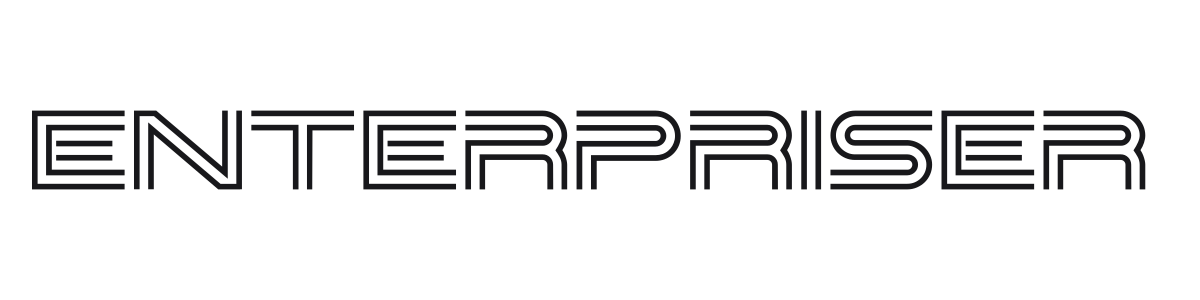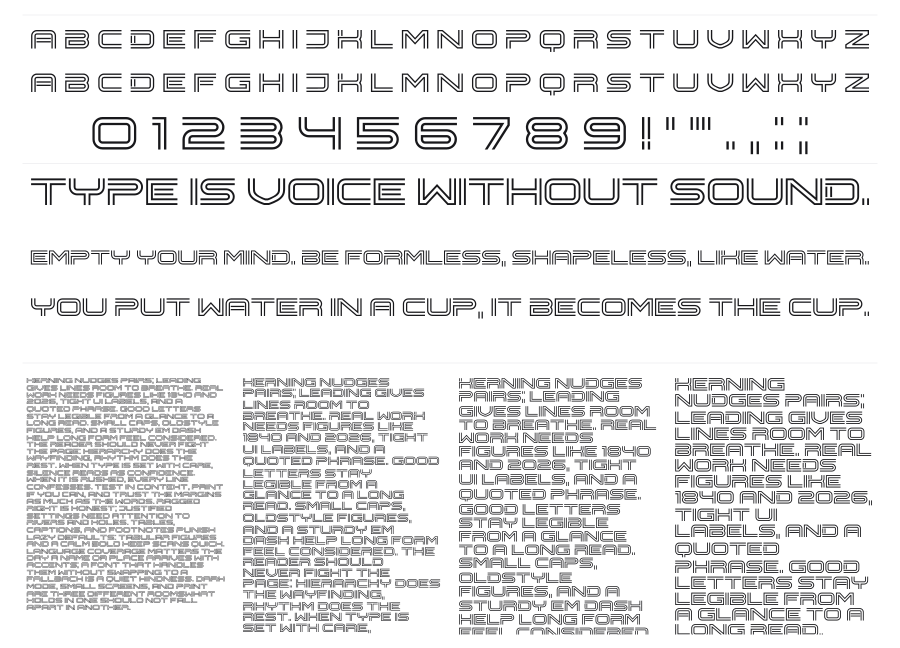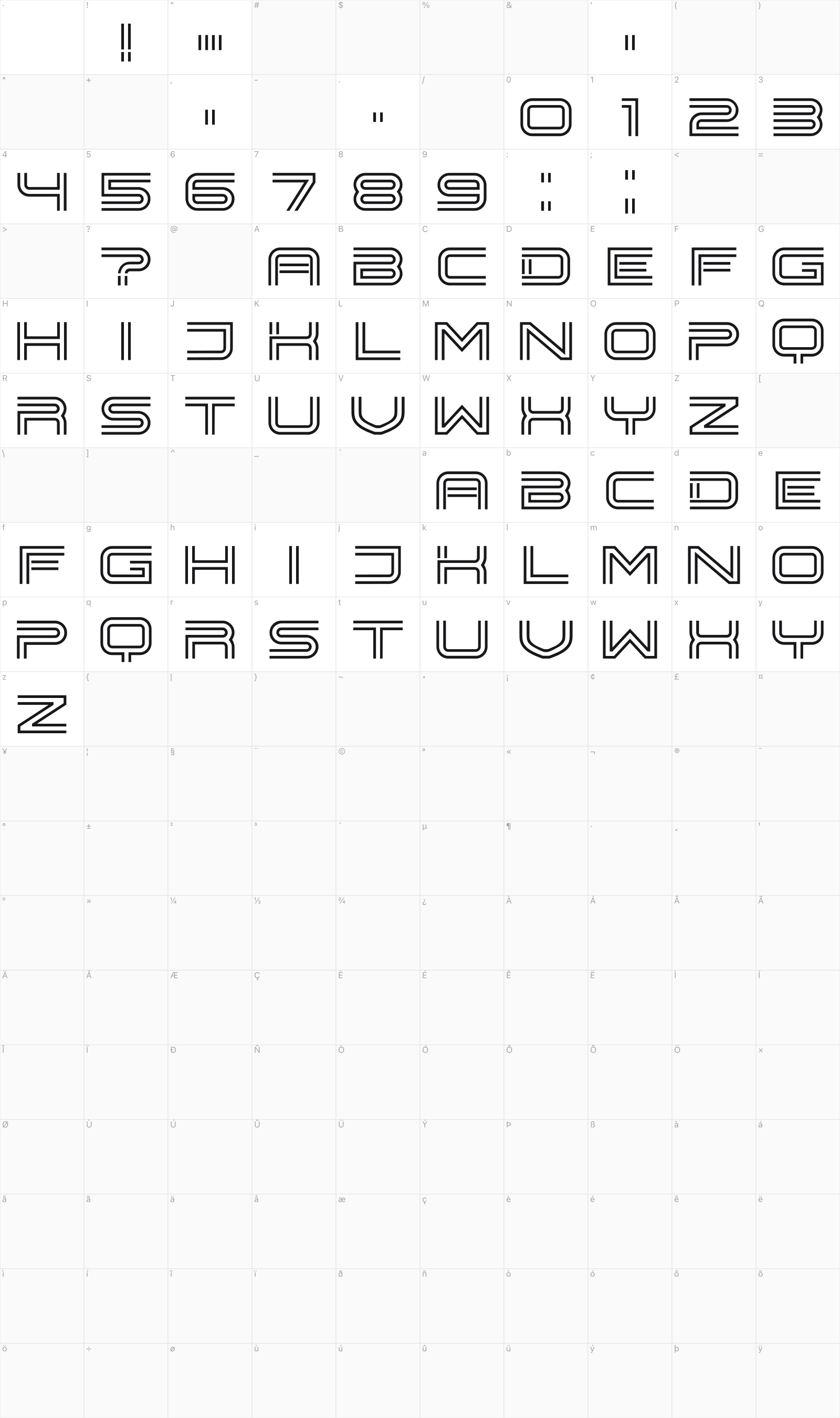
Enterpriser
Enterpriser is a wide geometric display font built on a double inline outline stroke that gives every character a layered, tunnel-like depth. Softly rounded corners and broad proportions push it firmly into retro-futurist territory. Strong for titles, posters, and brand identities that want a confident sci-fi edge.